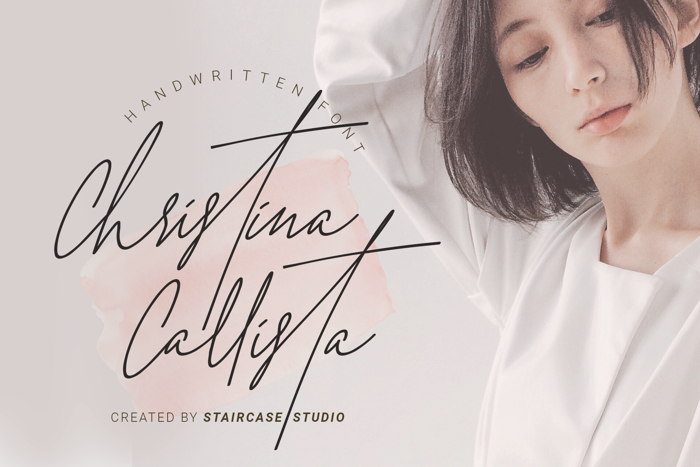
Christina Callista Font
Christina Callista with handwritten type font. A collection of letters and numbers suitable your projects also great for Logotype, Branding Design, Logo Design, Digital Lettering Arts, T-Shirt/Apparel, Poster, Magazine, Signs, Advertising Design, and any design needs.